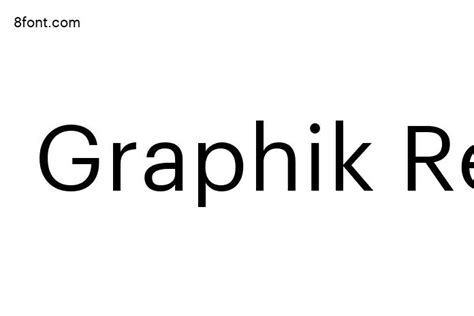
Graphik Font Free - Graphik font family was inspired by the appealing plainness seen in many of the less common 20th century european sans serifs and. This is a convenient and modern grotesk sans serif features low contrast details to cover small.
Graphik font family was inspired by the appealing plainness seen in many of the less common 20th century european sans serifs and. This is a convenient and modern grotesk sans serif features low contrast details to cover small.
This is a convenient and modern grotesk sans serif features low contrast details to cover small. Graphik font family was inspired by the appealing plainness seen in many of the less common 20th century european sans serifs and.
Graphik Font Family Was Inspired By The Appealing Plainness Seen In Many Of The Less Common 20Th Century European Sans Serifs And.
This is a convenient and modern grotesk sans serif features low contrast details to cover small.